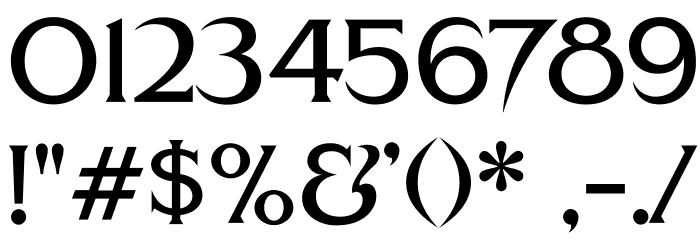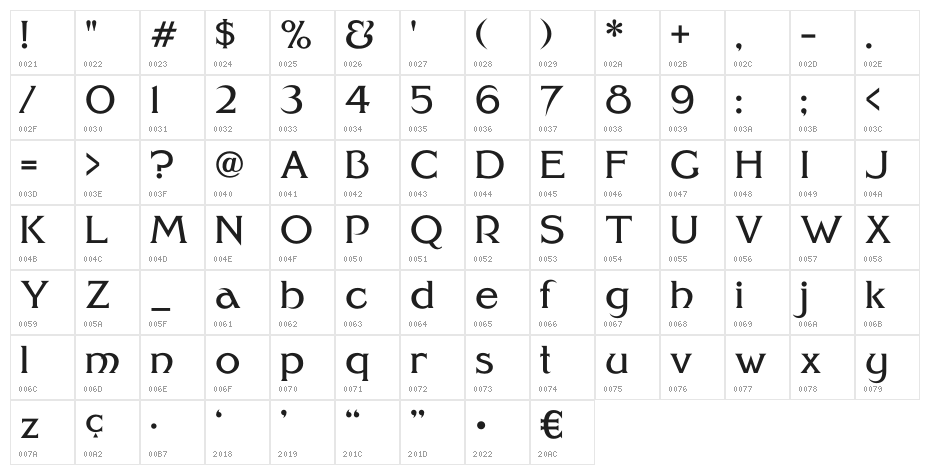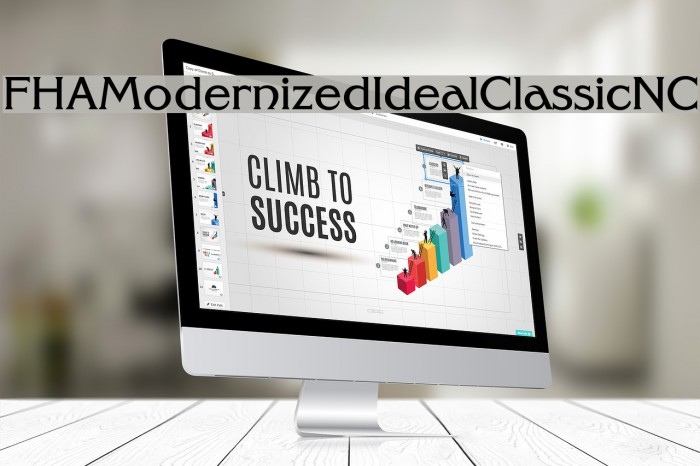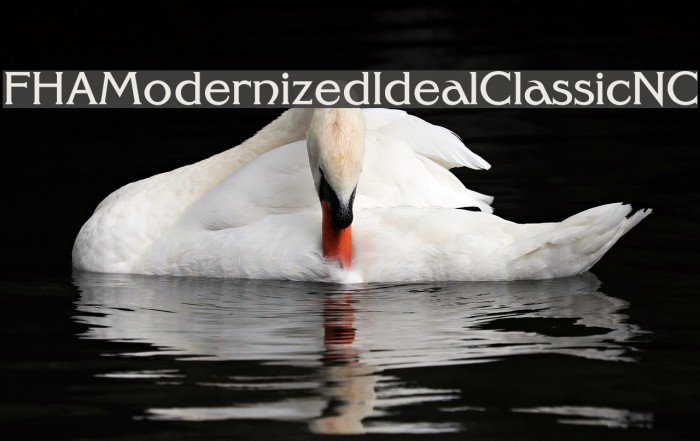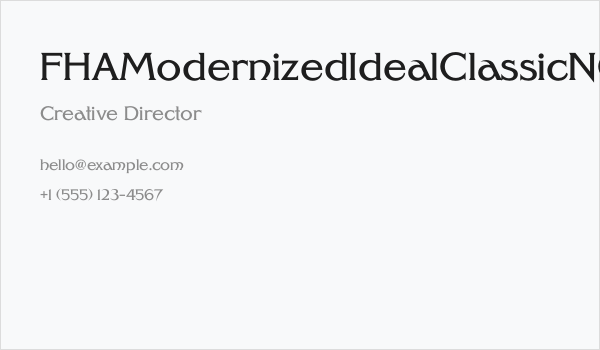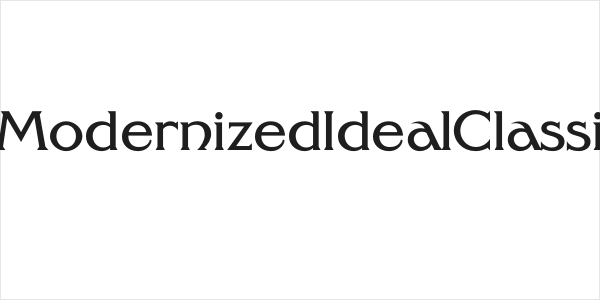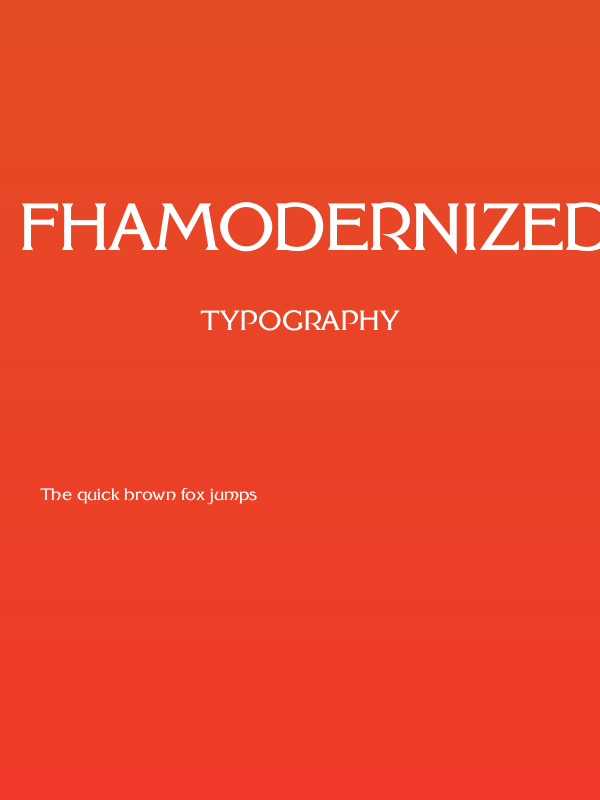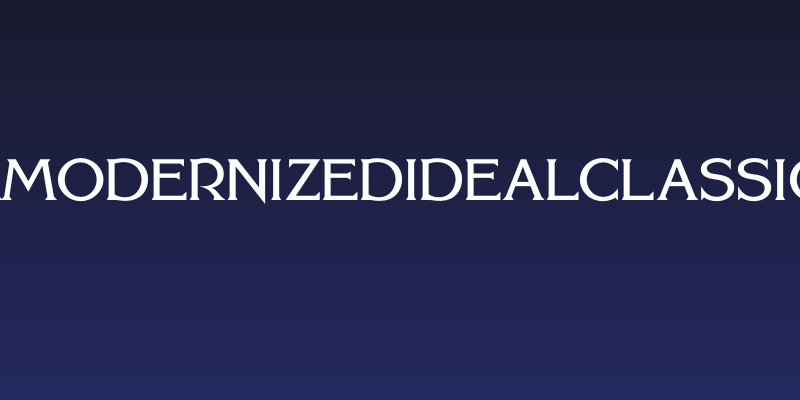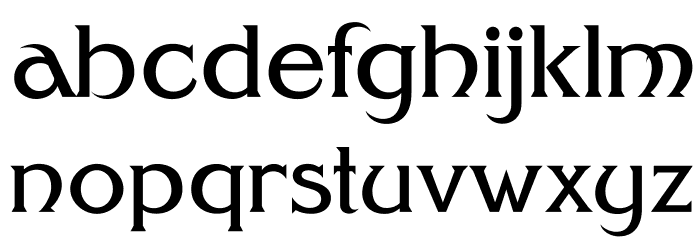
FHAModernizedIdealClassicNC Font
FHAModernizedIdealClassicNC Description
This font exhibits a refined and elegant style, blending classic serif elements with a modern twist. The characters feature sharp, clean lines and subtle curves, creating a sophisticated appearance. The uppercase letters are bold and commanding, while the lowercase letters maintain a graceful flow. Numerals are distinct and clear, ensuring readability. The special characters are well-integrated, complementing the overall design. This font's balance between tradition and modernity makes it versatile for various applications.